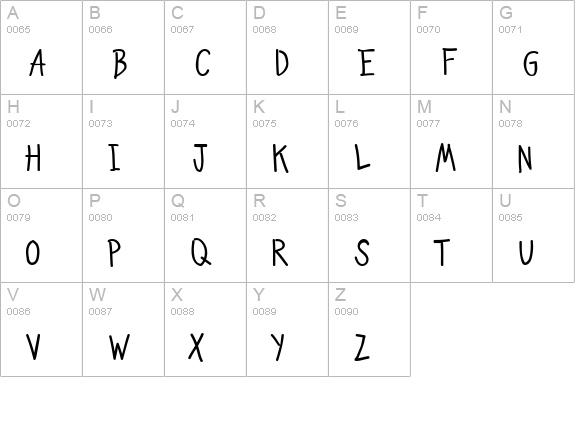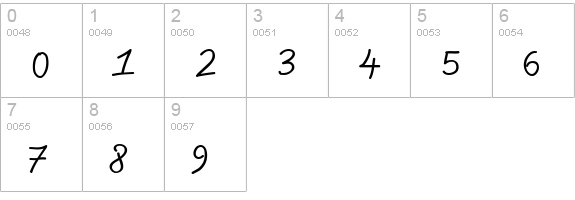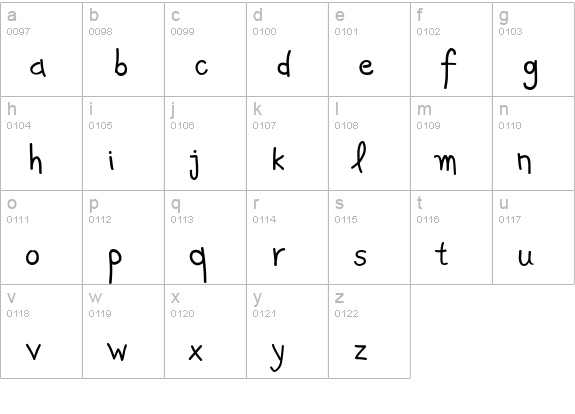
PFKids AgeTen font is a whimsical and playful typeface perfect for capturing the imagination of young readers. With its fun and quirky design, this font is sure to bring a touch of creativity to any project targeting children aged ten and above. The rounded edges and bold strokes of PFKids AgeTen font give it a friendly and approachable look, making it ideal for use in children's books, educational materials, and other projects aimed at engaging young audiences. What's even better is that PFKids AgeTen font is available for free download at FontsMarket.com. This means that you can easily access this charming font and start using it in your designs right away, without any cost involved. So why wait? Add a touch of whimsy to your projects with PFKids AgeTen font today!